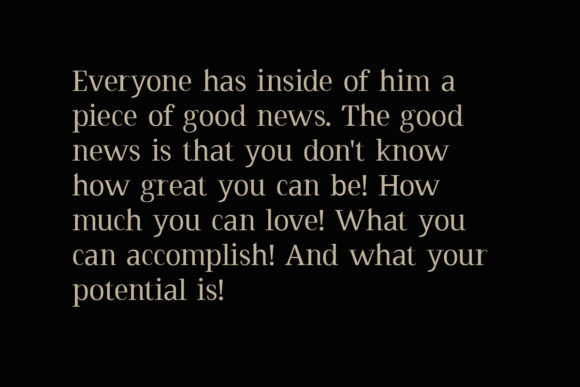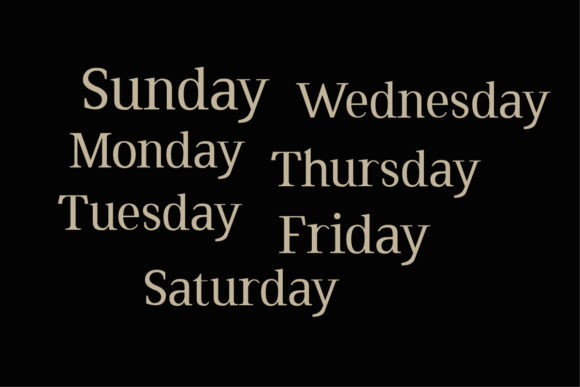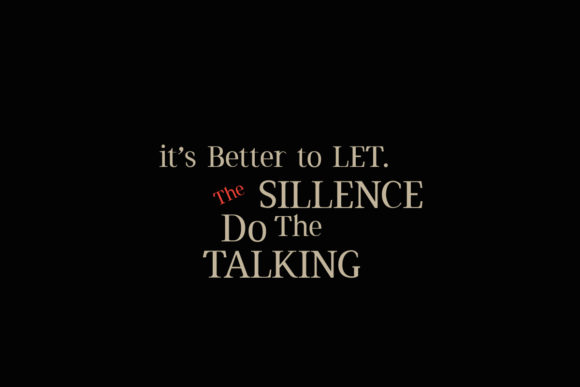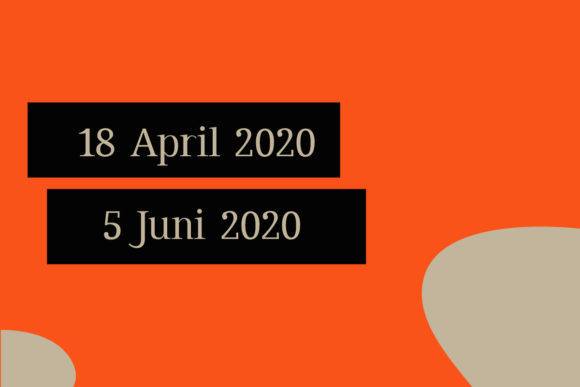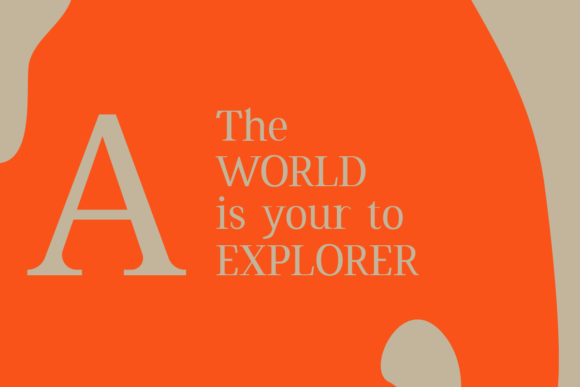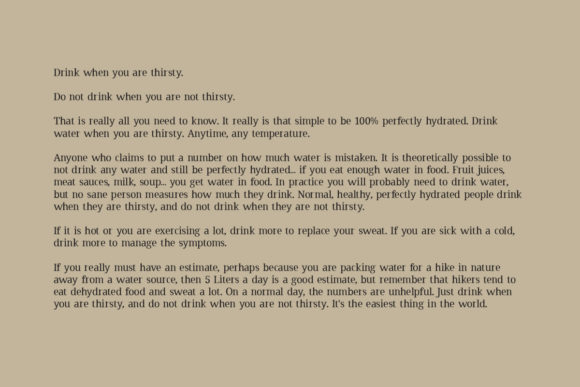
The Perfect Harmony of Typography: Black Voice Font
Have you ever been brainstorming ideas for a project and suddenly, the perfect font just clicks into place? That’s what happened when I stumbled upon Black Voice Font – an elegant and neat lettered serif font that adds a touch of sophistication to any design. Its clean lines and classic feel make it an ideal choice for a wide range of projects, from wedding invitations to corporate brochures.
Black Voice Font is more than just a pretty face; it’s a valuable tool for designers looking to elevate their work. With its versatility and timeless appeal, it can easily be matched to an incredibly large set of projects, making it a go-to choice for creatives. Whether you’re a seasoned pro or just starting out, Black Voice Font is sure to become a trusted companion in your design journey.
Black Voice Font Key Features
- Font Family: Black Voice Font is a unique, custom-designed font with a distinctive voice-like quality.
- Unique Characteristics: Features a distinctive voice-like quality, with subtle variations in letterforms and spacing to create a sense of movement and expression.
Black Voice Font Review
As a designer, I’ve had the chance to work with the Black Voice Font, and I must say it’s a unique addition to any project. ✨ The font’s bold, modern design and clean lines make it perfect for creating eye-catching headlines and titles. It’s a great choice for anyone looking to add a touch of sophistication to their brand or design.
One of the standout features of the Black Voice Font is its versatility. ✨ It works well in both digital and print formats, making it a great choice for designers who work across multiple platforms. Additionally, the font’s high x-height makes it easy to read, even in smaller font sizes.
However, there are some limitations to the Black Voice Font that designers should be aware of. ⚠️ One of the main issues is its limited character set, which can make it difficult to use for complex text-based projects. Additionally, the font may not be the best choice for projects that require a high level of legibility, as it can be a bit difficult to read in certain contexts.
- Modern, bold design
- Clean lines and high x-height
- Versatile for digital and print formats
- Great for headlines and titles
- Limited character set
- May not be ideal for complex text-based projects
- Can be difficult to read in certain contexts
Use Black Voice Font for bold and eye-catching headings.
Pair Black Voice Font with other fonts to create a unique and stylish typography.
Black Voice Font is ideal for:
Graphic design projects.
Marketing materials.
Branding and identity design.
Comparison to Black Voice Font: While Open Sans lacks the bold, dramatic feel of Black Voice Font, it is a more versatile and adaptable font, making it a better choice for a wider range of design applications.
Comparison to Black Voice Font: Unlike Black Voice Font, Playfair Display is more formal and less edgy, making it a better choice for high-end design projects where a more traditional look is desired.